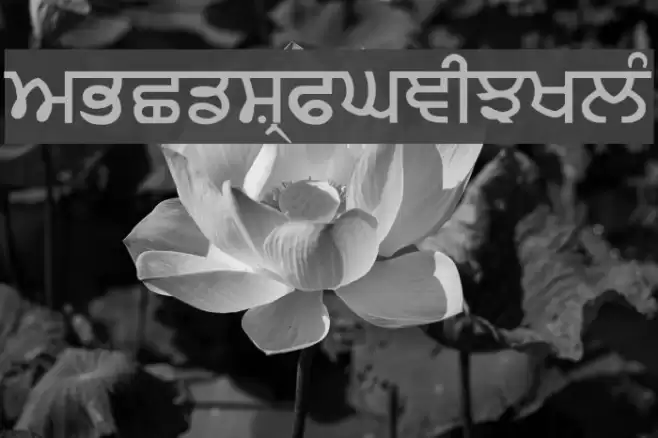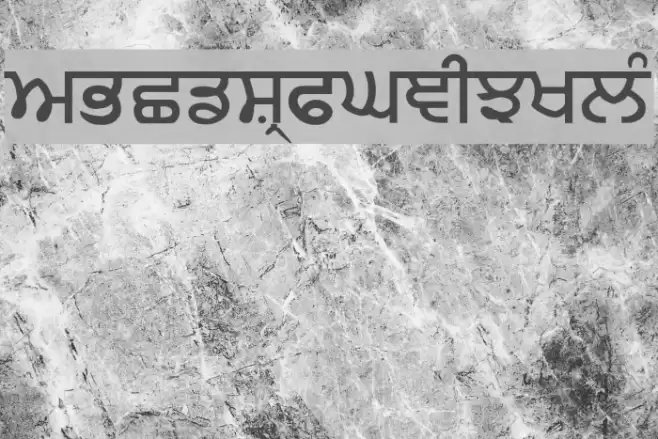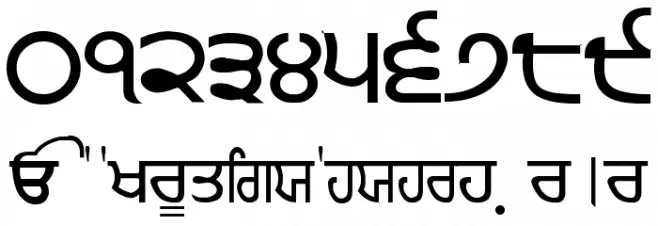
Sandhu01 Font
Sandhu01 Description
This font features a script that is characterized by its bold and structured appearance, typical of traditional scripts used in South Asian languages. The characters are well-defined with a consistent stroke width, giving it a robust and clear look. The script maintains a balance between decorative elements and readability, with each character distinctly separated yet harmoniously aligned. The numerals and special characters follow the same stylistic cues, ensuring uniformity across the font. This font is suitable for conveying cultural and traditional themes, making it ideal for projects that require an authentic and classic touch.
A bold, structured script font ideal for traditional and cultural themes from Uncategorized fonts.
- Proposed Projects: Ideal for cultural publications, traditional event invitations, educational materials, and signage.
- Overall Style: Classic
- Use Case: Headlines, Signage, Cultural publications